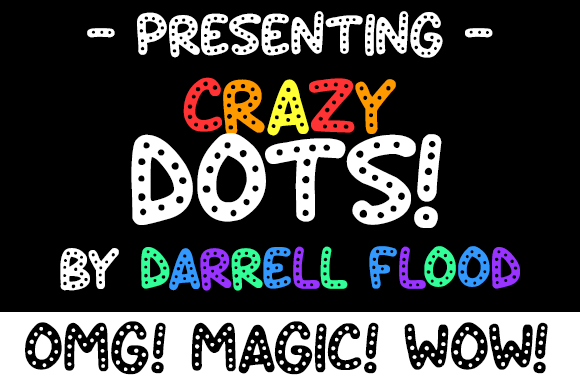
Crazy Dots Font: Add a Playful Touch to Your Designs with this Unique Decorative Font
Are you tired of using the same old fonts in your designs? Do you want to add a playful and creative touch to your projects? Look no further than the Crazy Dots Font! This acute decorative font is perfect for designers and crafters who want to make their work stand out. In this article, we’ll take a closer look at the Crazy Dots Font, its features, and how you can use it to take your designs to the next level.
What is Crazy Dots Font?
Crazy Dots is a thick marker-style decorative font that’s perfect for adding a fun and playful touch to your designs. This display font features bold, chunky lines and a unique dotted pattern that gives it a quirky and eye-catching look. Whether you’re working on a arts and crafts project, a graphic design project, or just want to add some personality to your digital designs, Crazy Dots Font is the perfect choice.
Key Features of Crazy Dots Font
- Thick Marker Style: Crazy Dots Font features bold, chunky lines that give it a marker-style look.
- Unique Dotted Pattern: The font’s dotted pattern adds a playful and creative touch to your designs.
- Decorative: Crazy Dots Font is a decorative font that’s perfect for adding a touch of personality to your designs.
- Display Font: This font is designed to be used as a display font, making it perfect for headings, titles, and other design elements.
Why Use Crazy Dots Font?
So why should you use Crazy Dots Font in your designs? Here are just a few reasons:
- Adds a Playful Touch: Crazy Dots Font adds a playful and creative touch to your designs, making them stand out from the crowd.
- Perfect for Arts and Crafts Projects: This font is perfect for arts and crafts projects, such as scrapbooking, card making, and other paper crafts.
- Great for Graphic Design: Crazy Dots Font is also great for graphic design projects, such as posters, flyers, and brochures.
- Easy to Read: Despite its playful look, Crazy Dots Font is easy to read, making it perfect for use in headings and titles.
How to Use Crazy Dots Font
Using Crazy Dots Font is easy! Here are a few tips to get you started:
- Use it as a Display Font: Crazy Dots Font is designed to be used as a display font, so use it for headings, titles, and other design elements.
- Pair it with Other Fonts: Pair Crazy Dots Font with other fonts to create a unique and interesting look.
- Experiment with Colors: Crazy Dots Font looks great in bold, bright colors, so don’t be afraid to experiment with different colors.
In conclusion, Crazy Dots Font is a unique and playful decorative font that’s perfect for designers and crafters who want to add a creative touch to their work. With its thick marker-style lines and dotted pattern, this font is sure to make your designs stand out. Whether you’re working on an arts and crafts project or a graphic design project, Crazy Dots Font is a great choice. So why not give it a try and see what amazing designs you can create?
- Use it for Kids’ Projects: Crazy Dots Font is perfect for kids’ projects, such as birthday cards, posters, and other fun designs.
- Great for DIY Projects: This font is also great for DIY projects, such as wood signs, vinyl decals, and other handmade items.
- Experiment with Different Sizes: Crazy Dots Font looks great in different sizes, so don’t be afraid to experiment with different sizes to create a unique look.